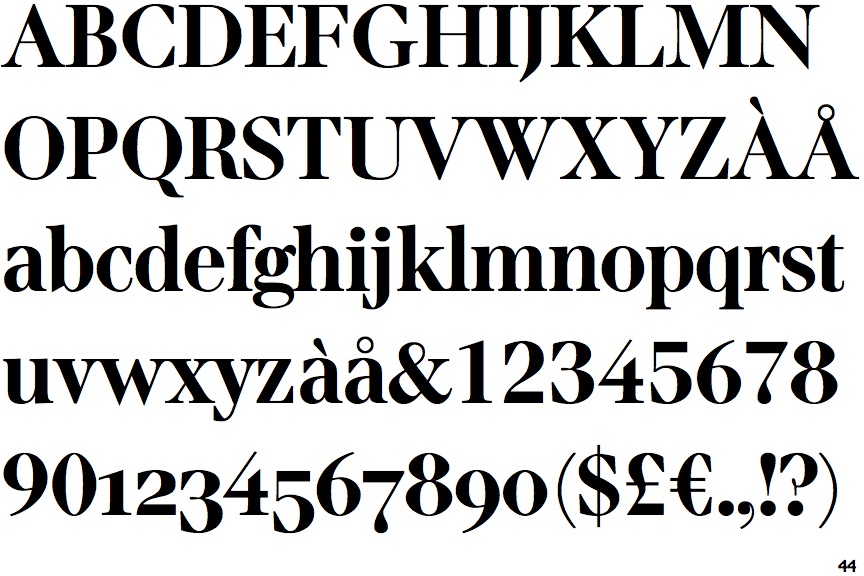
VentiQuattro Font
VentiQuattro Font is perfect for Italian restaurant branding, luxury automotive logos, high-end fashion campaigns, premium wine labels, artisan craft materials, sophisticated travel promotions, elegant hospitality signage, exclusive boutique identities, refined cultural events, and upscale lifestyle publications.
What makes VentiQuattro Font so exciting is its extraordinary ability to embody the timeless elegance and sophisticated craftsmanship of Italian design tradition through letterforms that seem to carry the artistic heritage of Renaissance masters and contemporary Italian excellence. This distinguished typeface captures the essence of Italian sophistication and cultural refinement with characters that radiate the perfect balance of classical beauty and modern luxury. The font's refined design elements perfectly merge historical Italian artistry with contemporary international appeal, creating an indispensable tool that communicates cultural authenticity, luxury craftsmanship, and sophisticated taste, making it essential for brands seeking to evoke the prestigious elegance and artistic excellence that defines authentic Italian style.
VentiQuattro Font comes in multiple font families including Regular, Bold, Light, Italic, Bold Italic, Elegante, Classico, and Lusso variations. Each family member maintains the core Italian sophistication characteristics while offering different refinement levels and stylistic approaches to suit various luxury design requirements.
The VentiQuattro Font Free Download offers designers an incredible opportunity to incorporate authentic Italian elegance into projects that demand cultural sophistication and luxury appeal. This remarkable typeface distinguishes itself through its unique ability to communicate themes of Italian heritage, artisan excellence, and sophisticated luxury. Whether you're developing Italian hospitality brands, creating luxury product campaigns, or designing cultural celebration materials, this font ensures your message radiates the refined elegance and cultural authenticity that discerning audiences associate with the finest Italian traditions and contemporary luxury.
The artisanal precision in VentiQuattro Font makes it particularly effective for luxury brands and cultural institutions where conveying authentic Italian sophistication and artisan quality is crucial for connecting with sophisticated clientele who appreciate genuine cultural heritage and exceptional craftsmanship. Its elegant letterforms work exceptionally well across all luxury applications, from fine dining establishments to high-end fashion brands, maintaining consistent cultural authenticity and luxury appeal.
Luxury marketing professionals appreciate how VentiQuattro Font transforms ordinary brand communications into sophisticated expressions of Italian cultural excellence and luxury craftsmanship. The typeface's refined character set includes special European characters, cultural elements, and luxury symbols that enhance the overall Italian sophistication atmosphere of any premium project.
For creative professionals serving Italian brands, luxury hospitality, and cultural organizations, VentiQuattro Font serves as the perfect foundation for establishing memorable visual identities that capture the essential qualities of Italian elegance, cultural sophistication, and artisan excellence that define successful brands celebrating the timeless beauty and refined luxury of authentic Italian style and heritage.